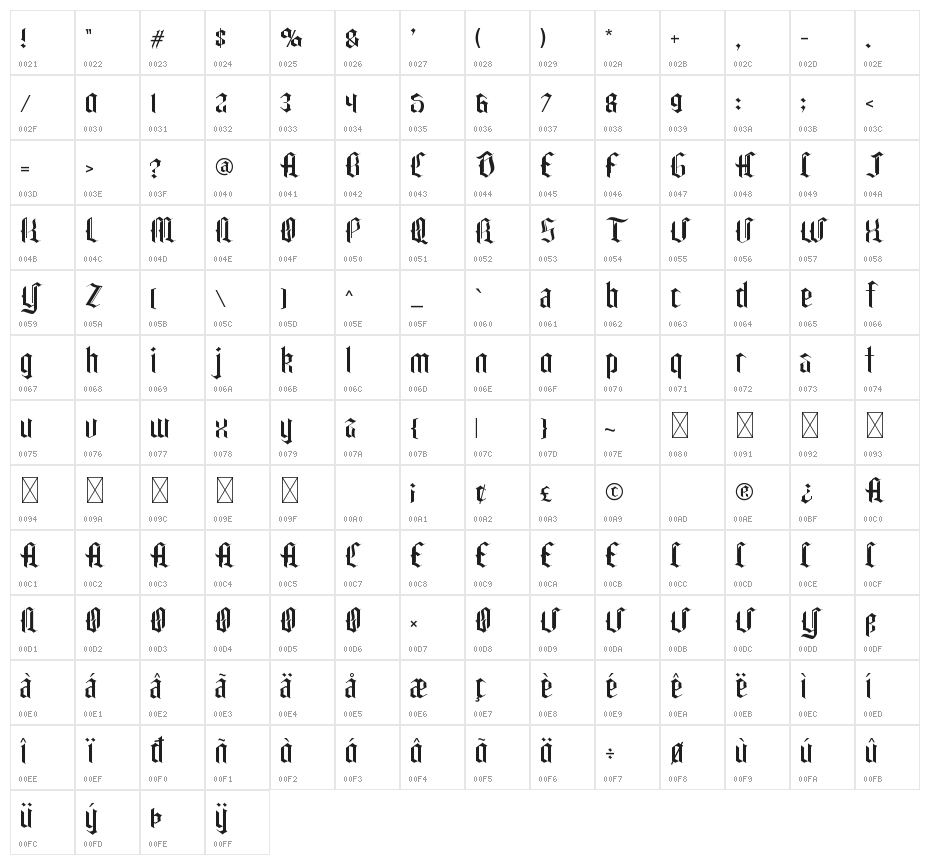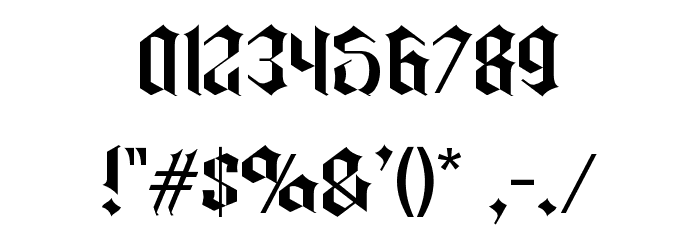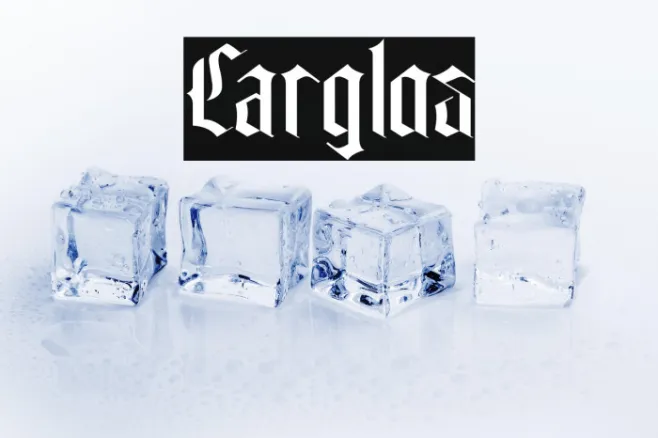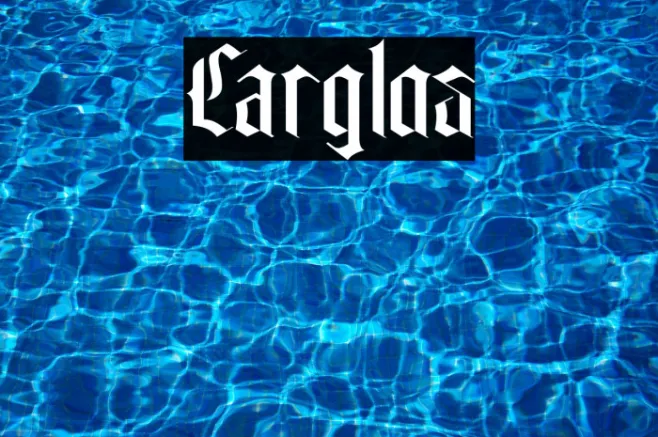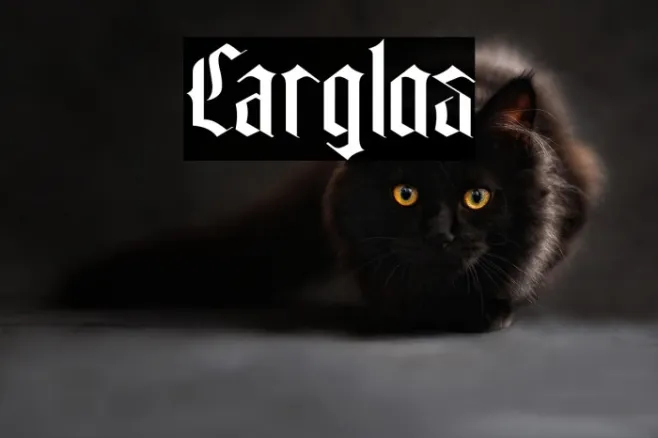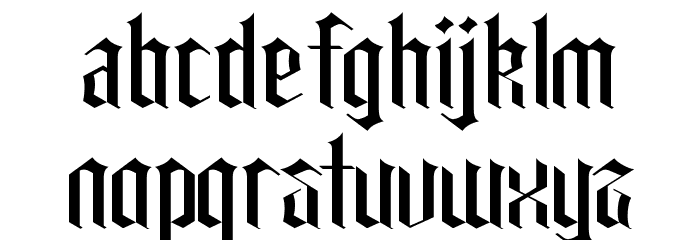
Carglos Font
Carglos Description
This font features a bold and dramatic blackletter style, characterized by its sharp, angular lines and intricate detailing. The uppercase letters are particularly striking, with strong vertical strokes and pointed serifs that give a sense of grandeur and tradition. The lowercase letters maintain the same stylistic elements, ensuring consistency across the typeface. Numbers and special characters are designed to match the overall aesthetic, making this font suitable for projects that require a historical or gothic touch. The font's intricate design makes it ideal for decorative purposes, where it can be used to create a strong visual impact.
| Use Case | Logos, Headlines, Decorative elements |
| Proposed Projects | Ideal for use in branding, posters, book covers, and any project requiring a historical or gothic aesthetic. |